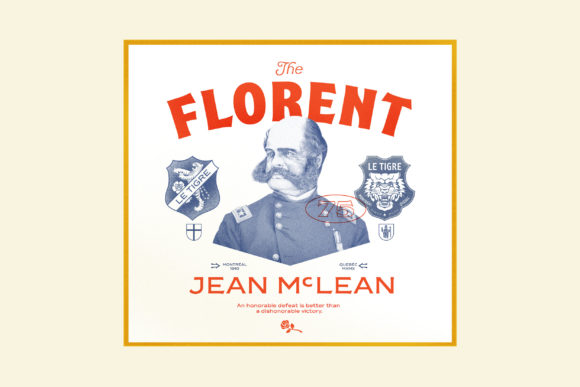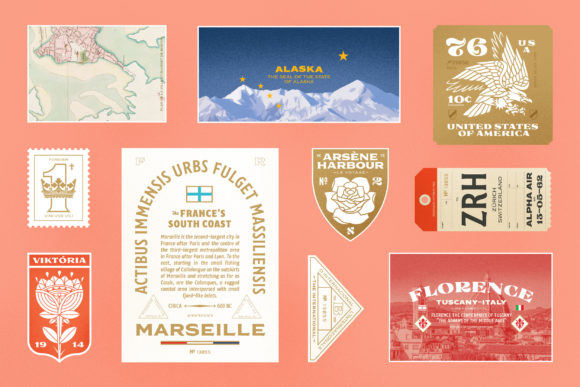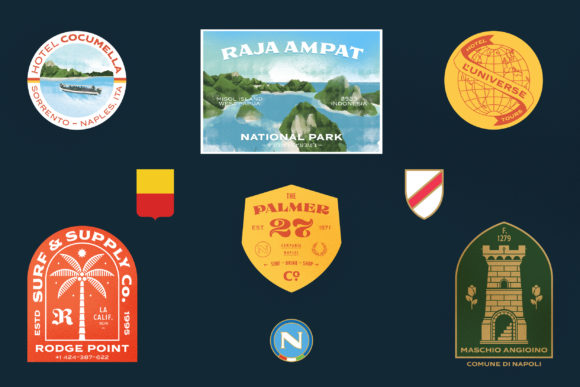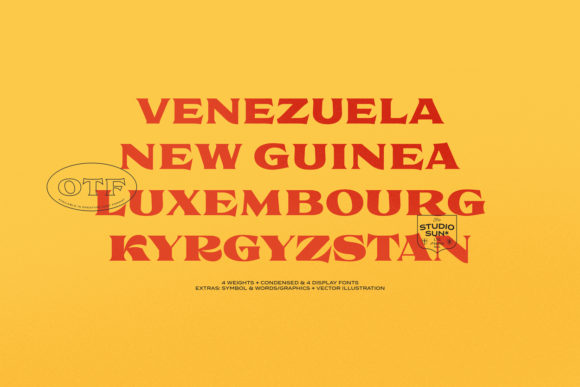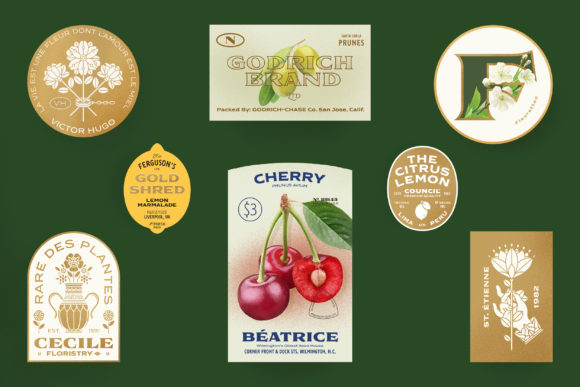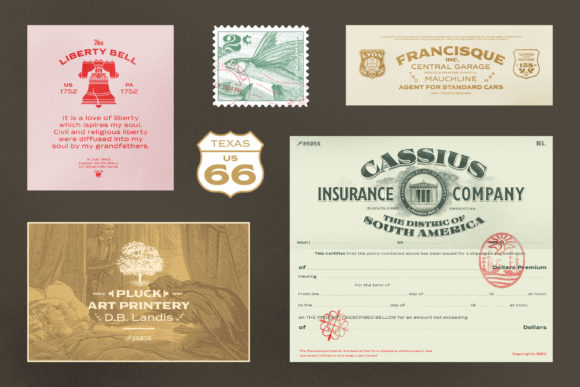
Introducing the Florent Family Font: A Timeless Serif Collection Inspired by the 15th Century Printing Revolution
The world of typography has witnessed numerous transformations over the centuries, with each era leaving its mark on the art of printing. One such pivotal moment was the revolution of printing in the early 1500s, when print advertisements began to emerge, primarily aimed at promoting books and other printed materials. This marked the beginning of a new era in communication, as the printing press spread rapidly across Europe, making books and other printed materials more affordable and accessible to the masses. It is this era that inspired the creation of the Florent Family Font, a serif font family that pays homage to the traditional printing techniques of the 15th century.
The Inspiration Behind Florent Family Font
The Florent Family Font is a serif font family designed to evoke the spirit of the early printing era. With its roots in traditional geometric construction and subtle serif details, this font family brings to life the essence of the 15th-century printing revolution. The font’s design is reminiscent of the early print advertisements used to promote books, hotel luggage labels, packaging, flyers, posters, tickets, and other printed materials that became increasingly popular during this period.
Key Features of the Florent Family Font
The Florent Family Font is a comprehensive font collection that offers a range of styles to suit various design needs. Here are some of its key features:
- 2 Condensed Versions: The font family includes two condensed versions, perfect for designs that require a more compact and sleek look.
- 3 Weights: The condensed versions are available in three weights, providing designers with a range of options for their projects.
- 4 Semi-Extended Weights: In addition to the condensed versions, the font family also includes four semi-extended weights, offering a more relaxed and open feel.
- Traditional Geometric Construction: The font’s design is based on traditional geometric construction, ensuring a classic and timeless look.
- Subtle Serif Details: The font features subtle serif details, adding a touch of elegance and sophistication to any design.
The Florent Family Font is an excellent addition to any designer’s or crafter’s toolkit. With its classic and timeless look, this font family is perfect for a wide range of projects, including:
- Print Design: The font’s traditional feel makes it ideal for print designs, such as brochures, flyers, posters, and business cards.
- Digital Design: The font’s legibility and clarity also make it suitable for digital designs, including website headers, social media graphics, and email marketing campaigns.
- Crafting: The font’s playful and whimsical feel also makes it perfect for crafting projects, such as handmade cards, scrapbooking, and DIY paper crafts.
In conclusion, the Florent Family Font is a versatile and comprehensive font collection that offers a unique blend of traditional and modern design elements. With its range of styles, subtle serif details, and bonus vector pack, this font family is an excellent choice for designers and crafters looking to add a touch of elegance and sophistication to their projects.